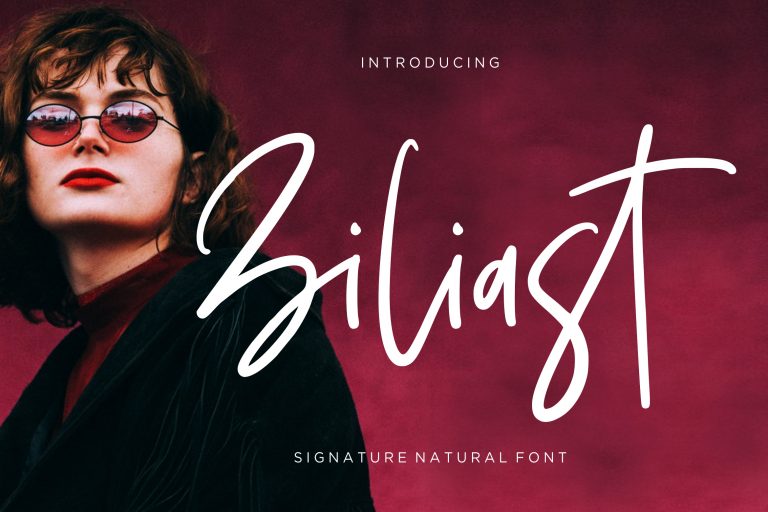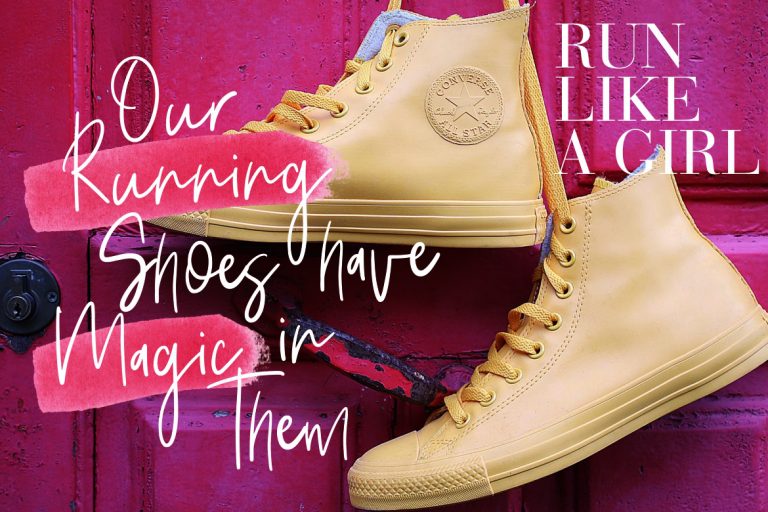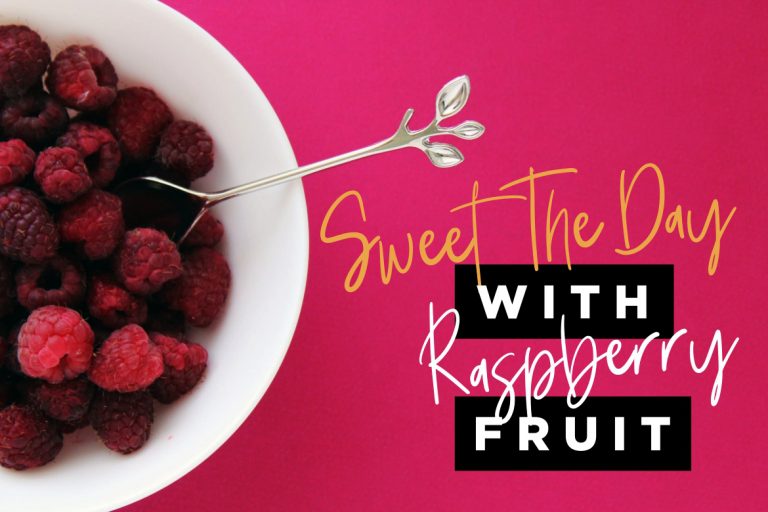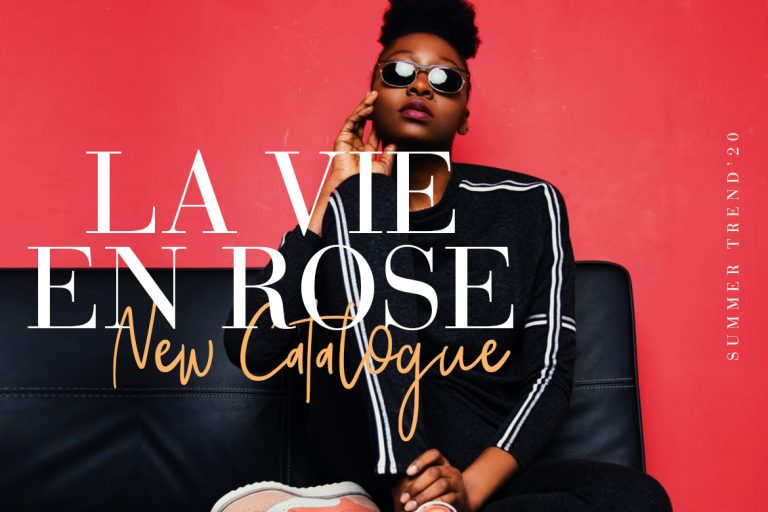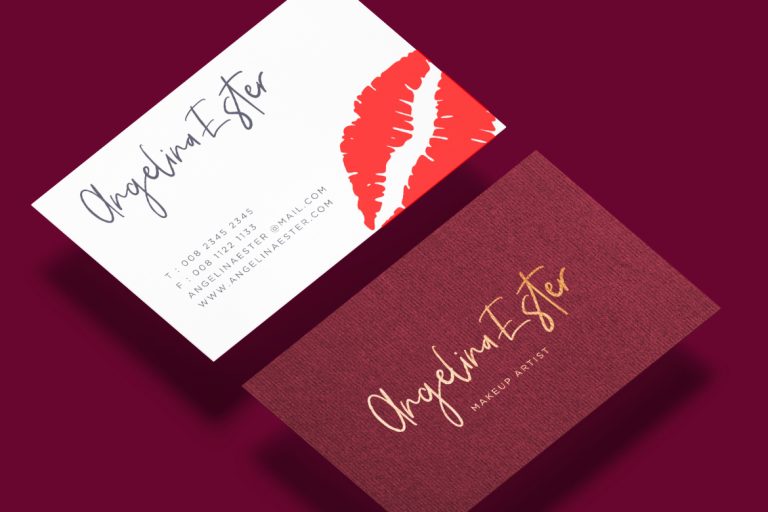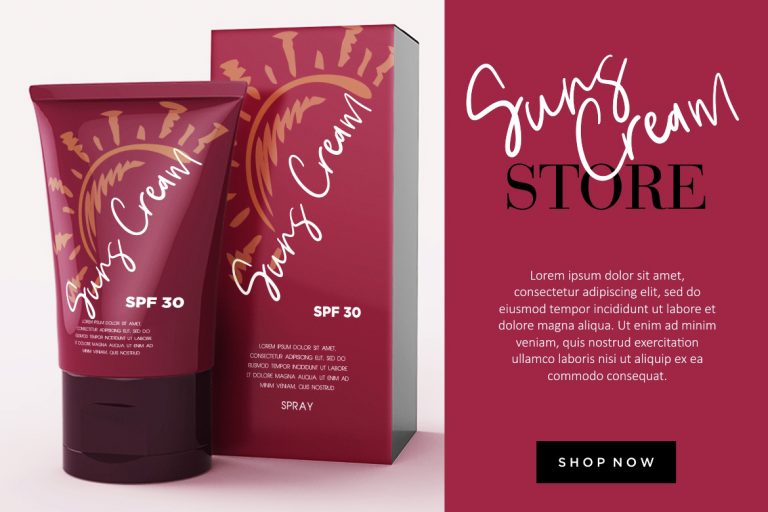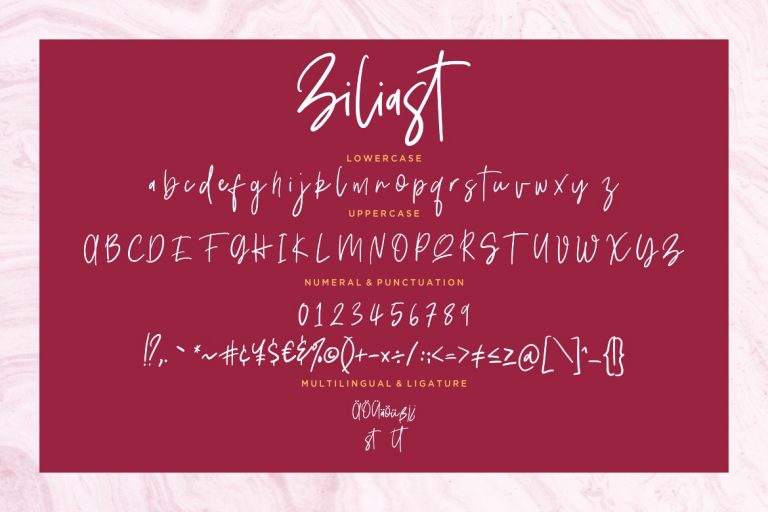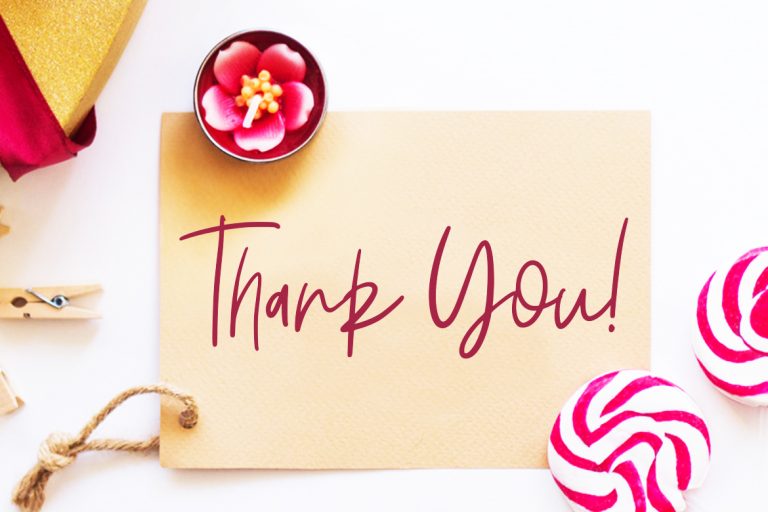
Ziliast is signature collection font with natural swash style.
Ziliast is perfect for branding projects, logo, wedding designs, social media posts, advertisements, product packaging, product designs, label, photography, watermark, invitation, stationery and any projects that need handwriting taste.
- Standard glyphs
- Ligature
- Fonts include multilingual support for; ä ö ü Ä Ö Ü ß ¿ ¡
Ziliast Signature Natural